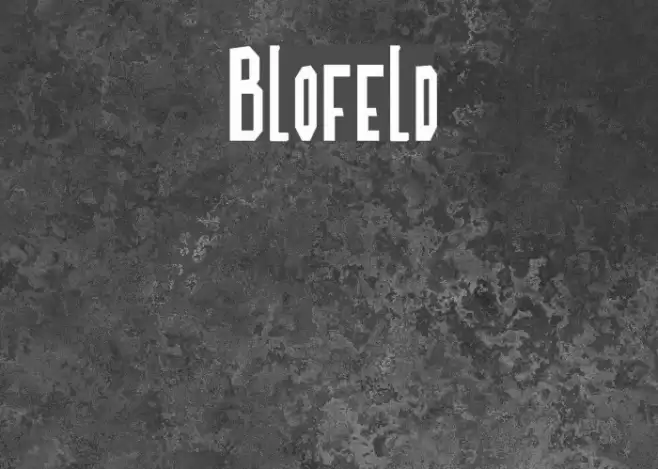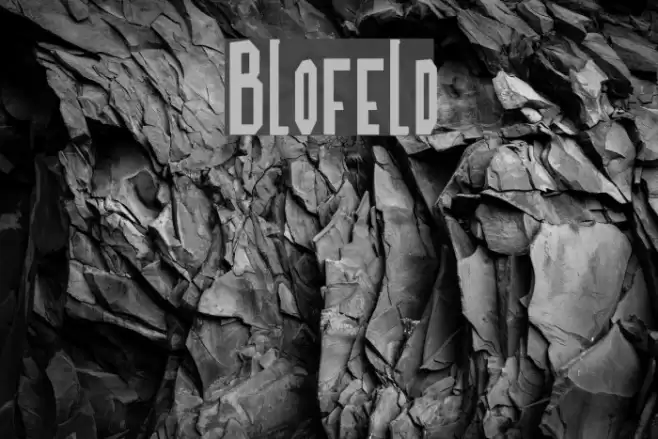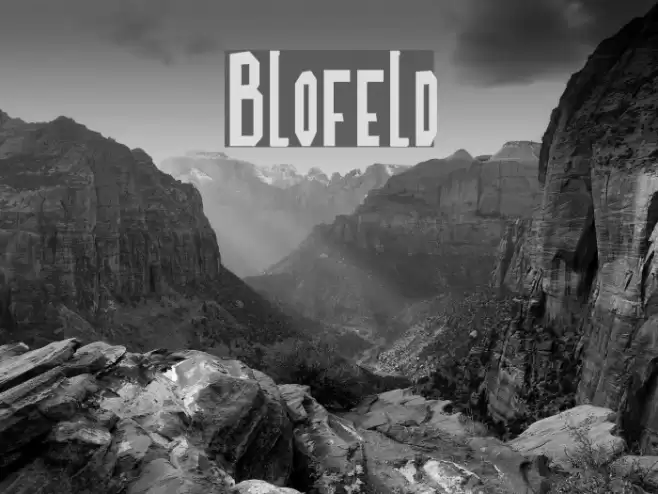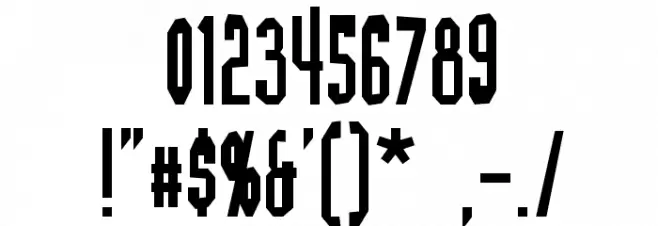
Blofeld Font
Blofeld Description
This font features a bold and striking design with a strong geometric influence. The uppercase letters are tall and narrow, with sharp angles and a distinct presence. The lowercase letters maintain a similar style, offering a cohesive look across different text cases. Numbers are equally bold, ensuring readability and impact. Special characters are designed to match the overall aesthetic, making them suitable for various applications. The font's unique style is ideal for making a statement, with its high contrast and distinctive shapes.
A bold, geometric font with sharp angles and high contrast from Uncategorized fonts.